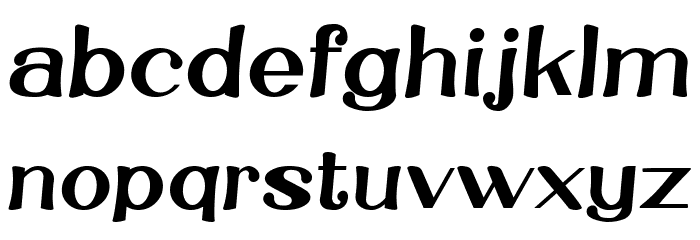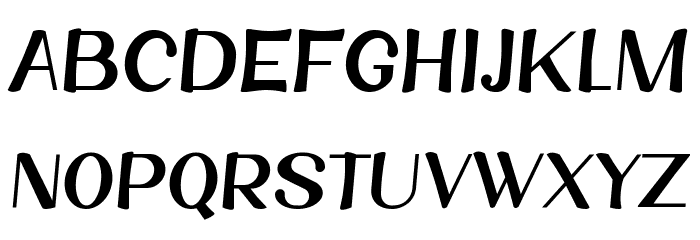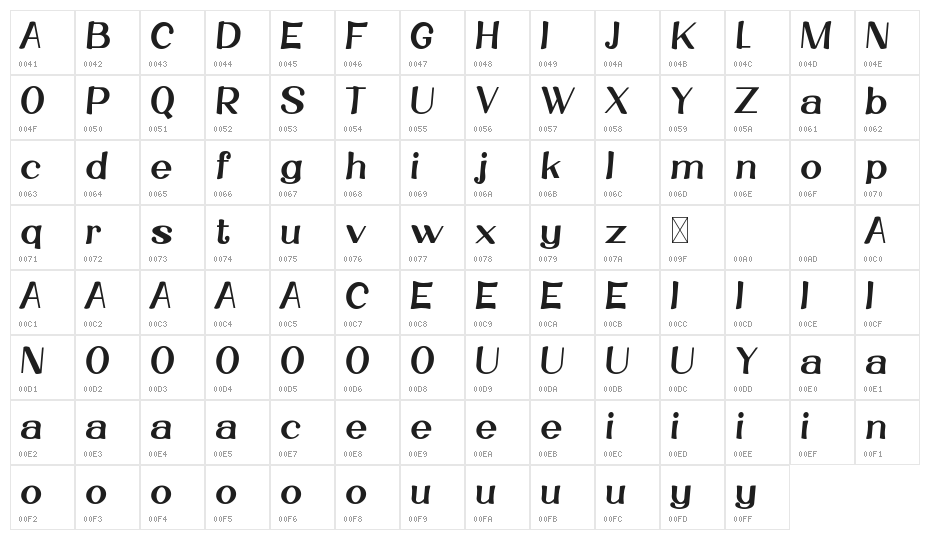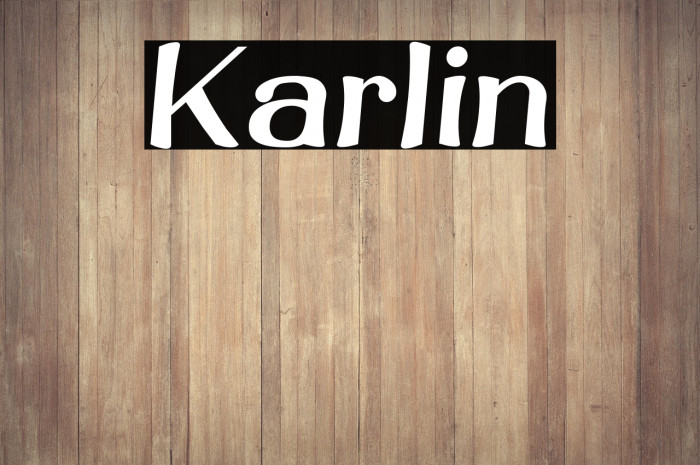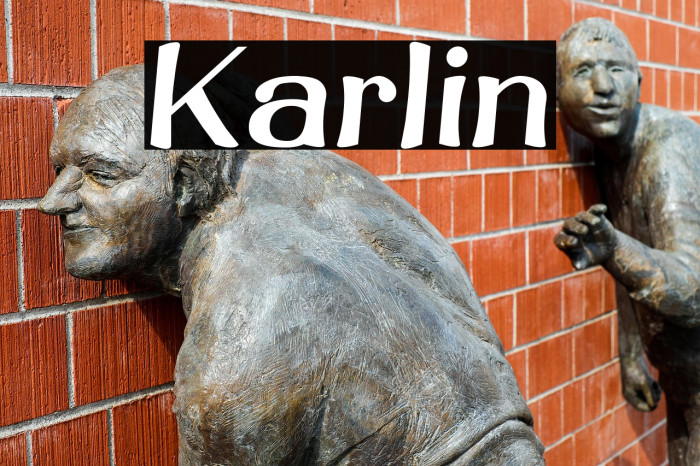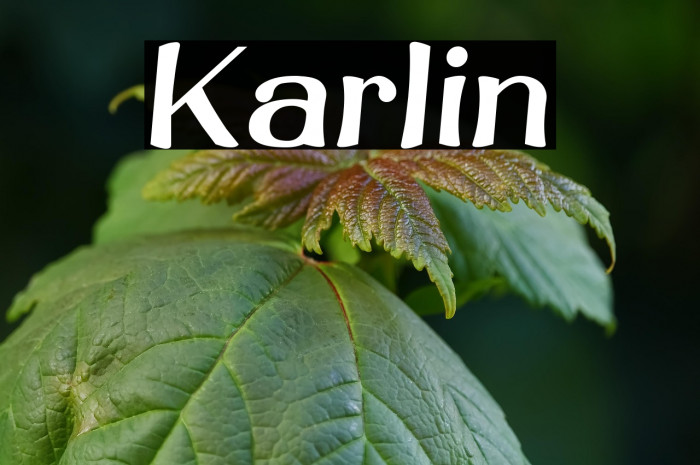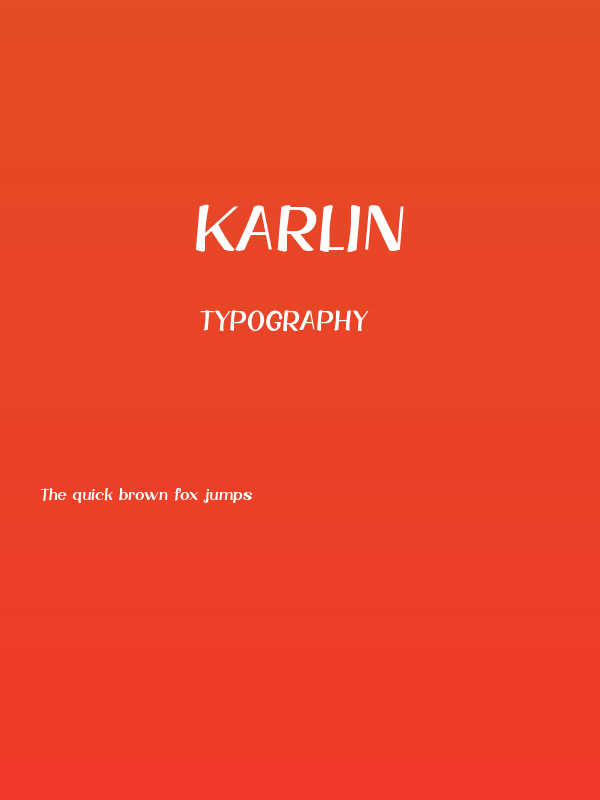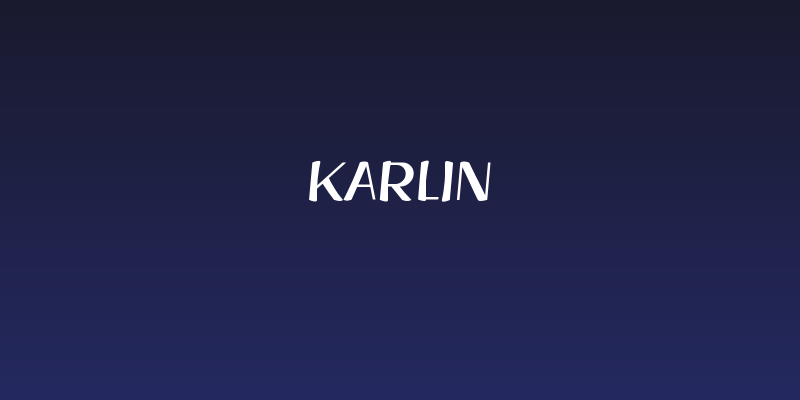
Karlin Font
This font exhibits a dynamic and slightly playful character with a distinct italic slant, giving it a sense of motion and fluidity. The strokes are moderately thick, providing a balanced contrast that enhances readability while maintaining a stylish appearance. The uppercase letters are bold and assertive, while the lowercase letters are more rounded and approachable, creating a harmonious blend of strength and elegance. The font's unique curvature and subtle serifs add a touch of sophistication, making it versatile for various design applications. Its overall style is modern yet timeless, suitable for both digital and print media.
A dynamic, italic font with moderate contrast and subtle serifs, offering a modern yet timeless appeal.
- Proposed Projects: Ideal for branding, editorial design, advertising, and digital media projects that require a touch of elegance and modernity.
- Use Case: Headlines, Logos, Editorial design